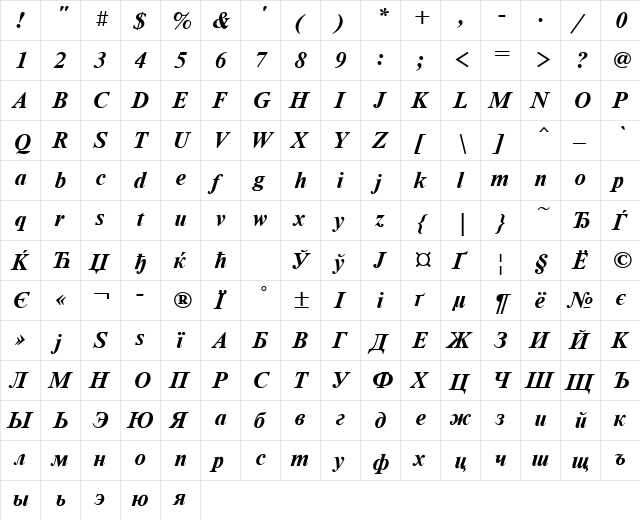
TenseC BoldItalic
Design Context for TenseC Typeface
TenseC takes a measured approach to typography — its balanced proportions and neutral character make it a reliable workhorse for both digital and print work. The dynamic lean of this cut emphasises speed and emphasis in any layout. The heavy weight commands attention and anchors typographic hierarchies.
Pro Tip: Use TenseC for emphasis, pull quotes, and subheadings where its slanted energy can add rhythm to the layout.